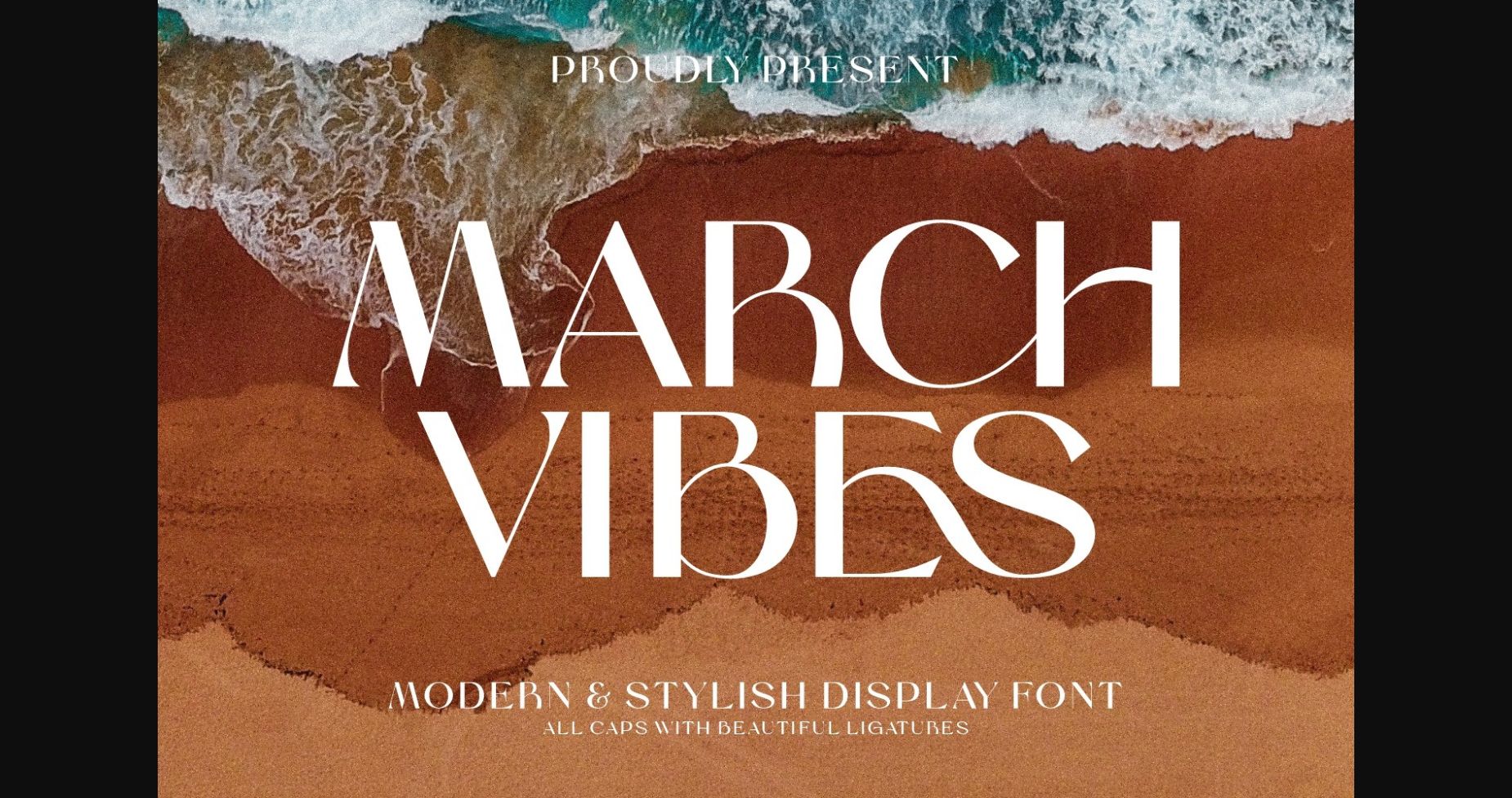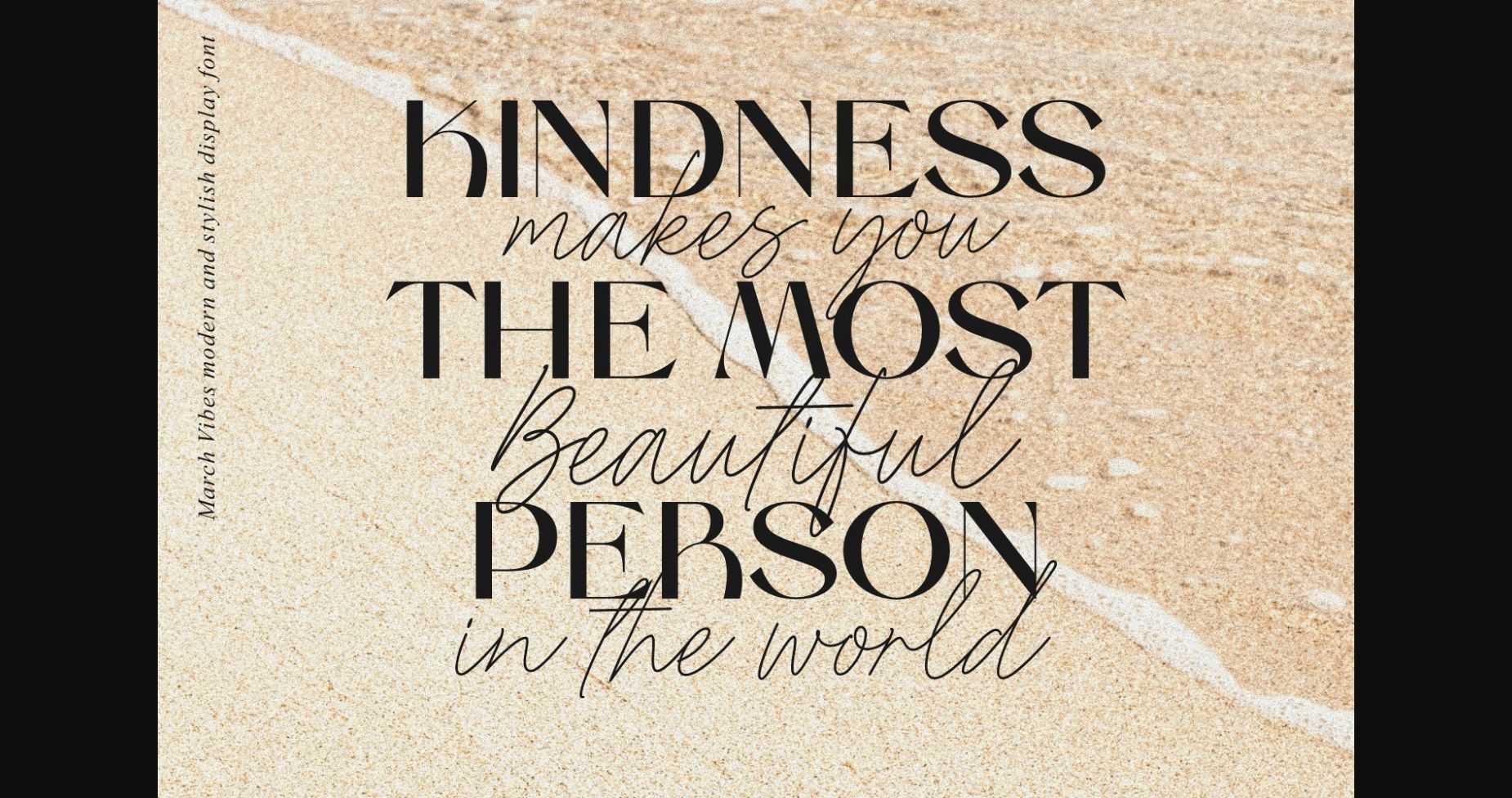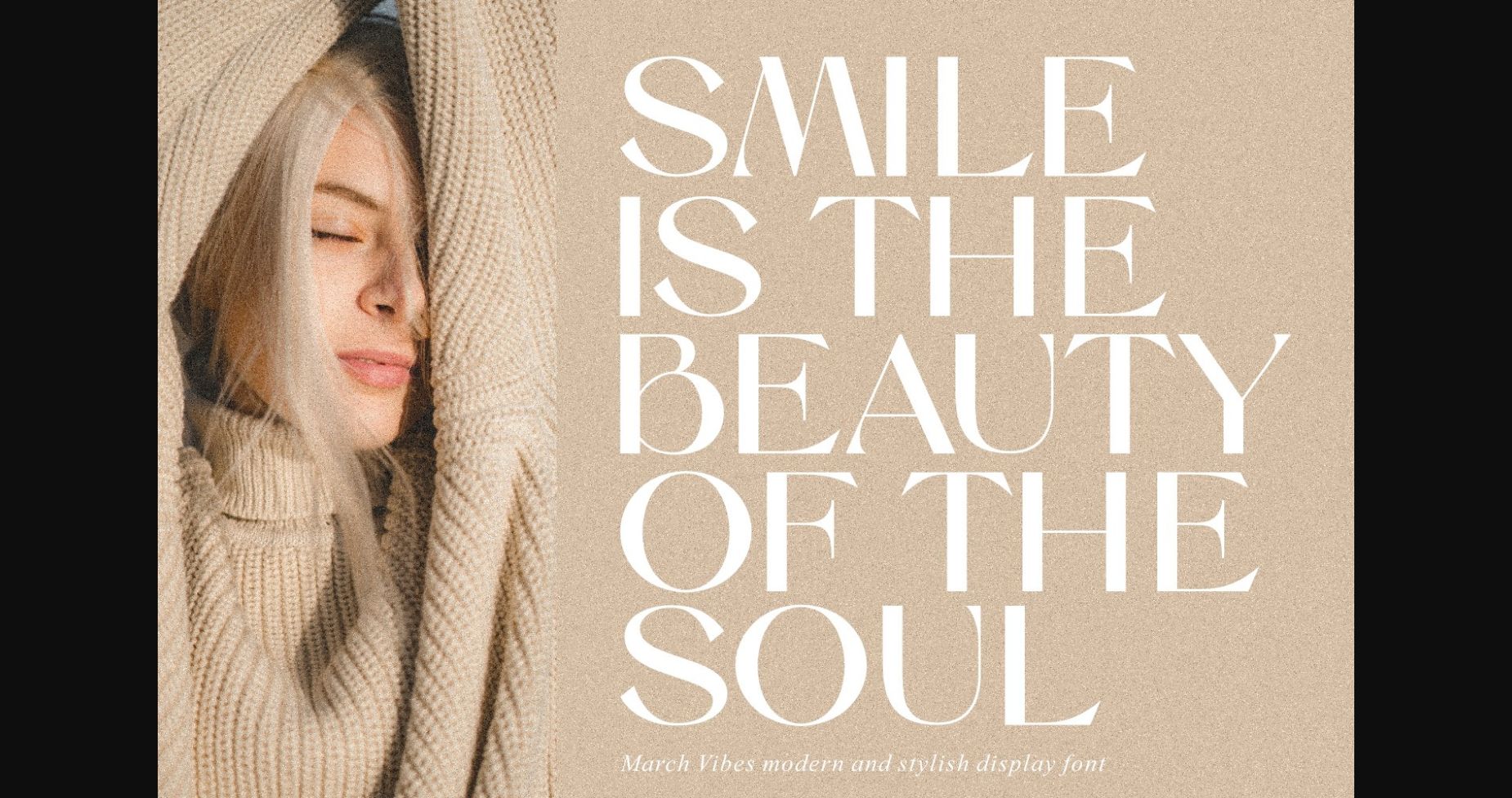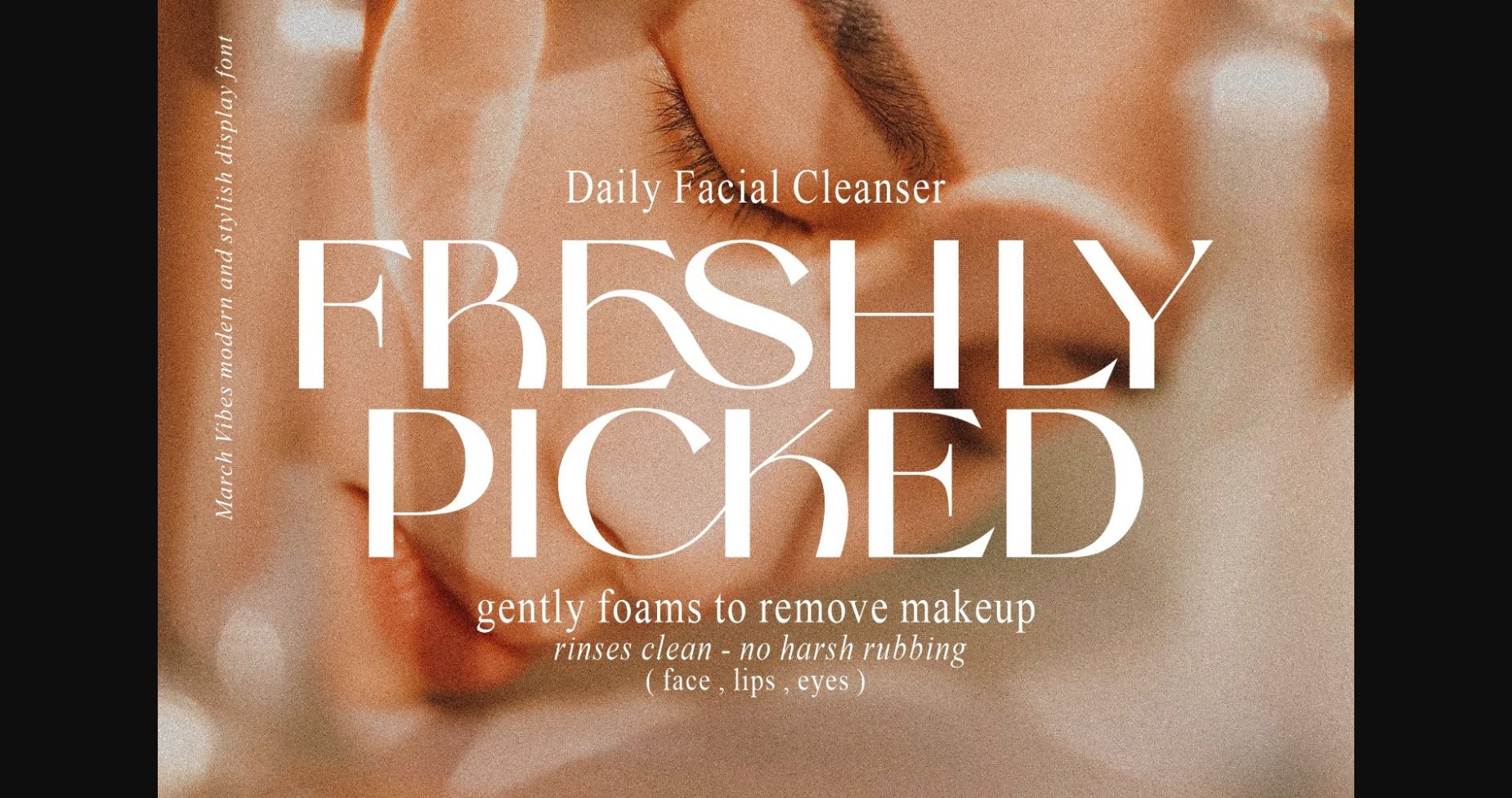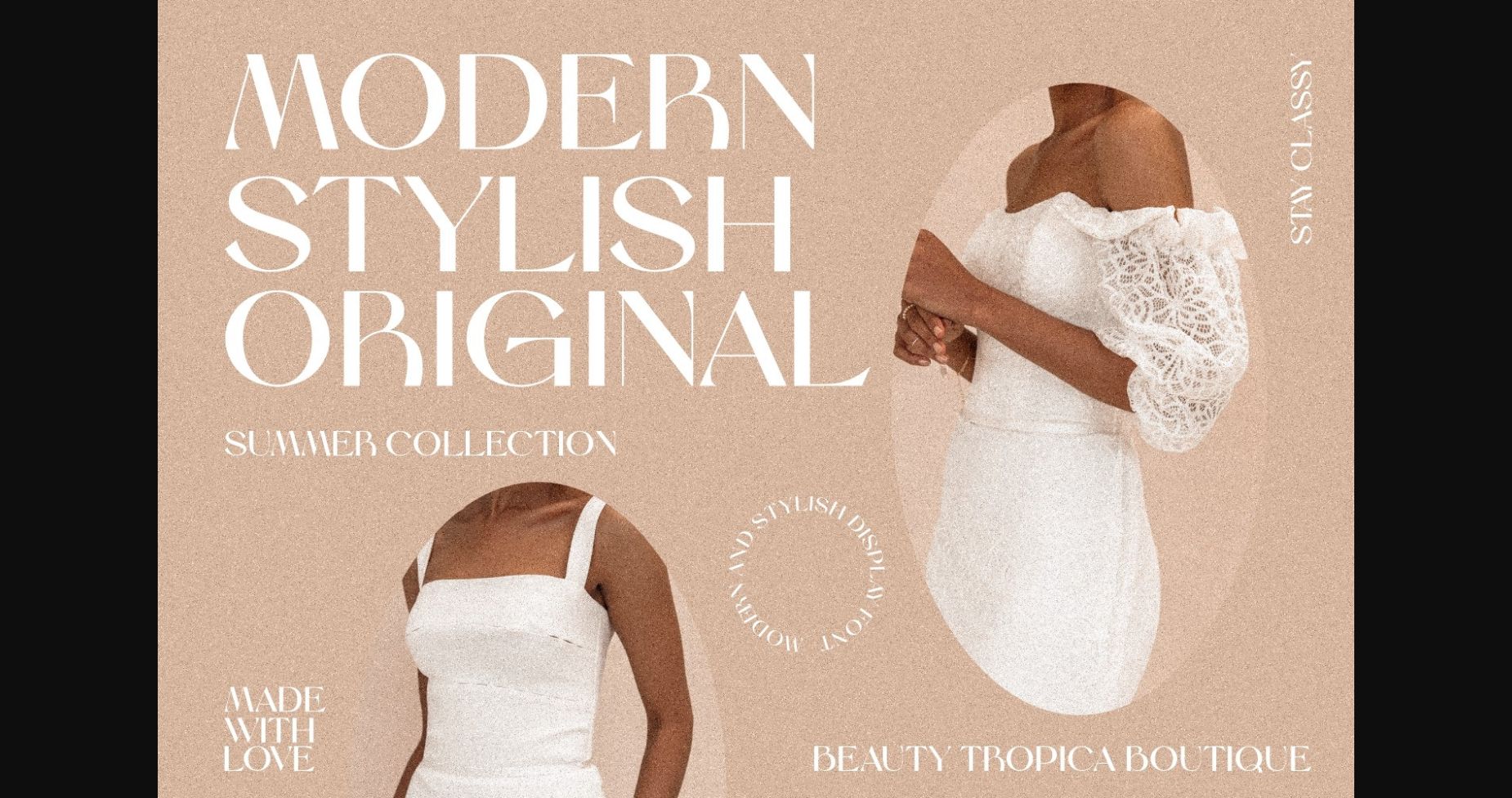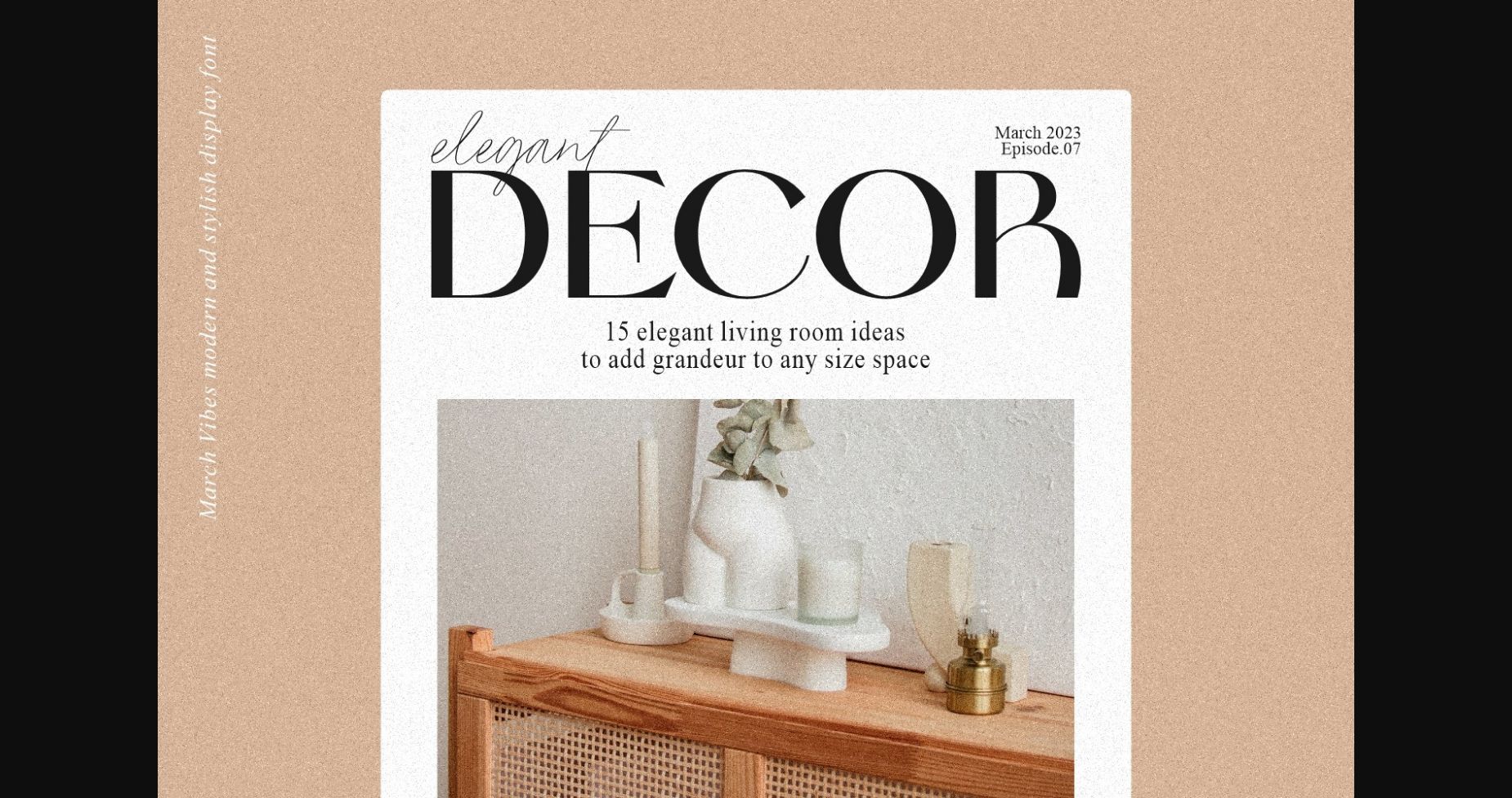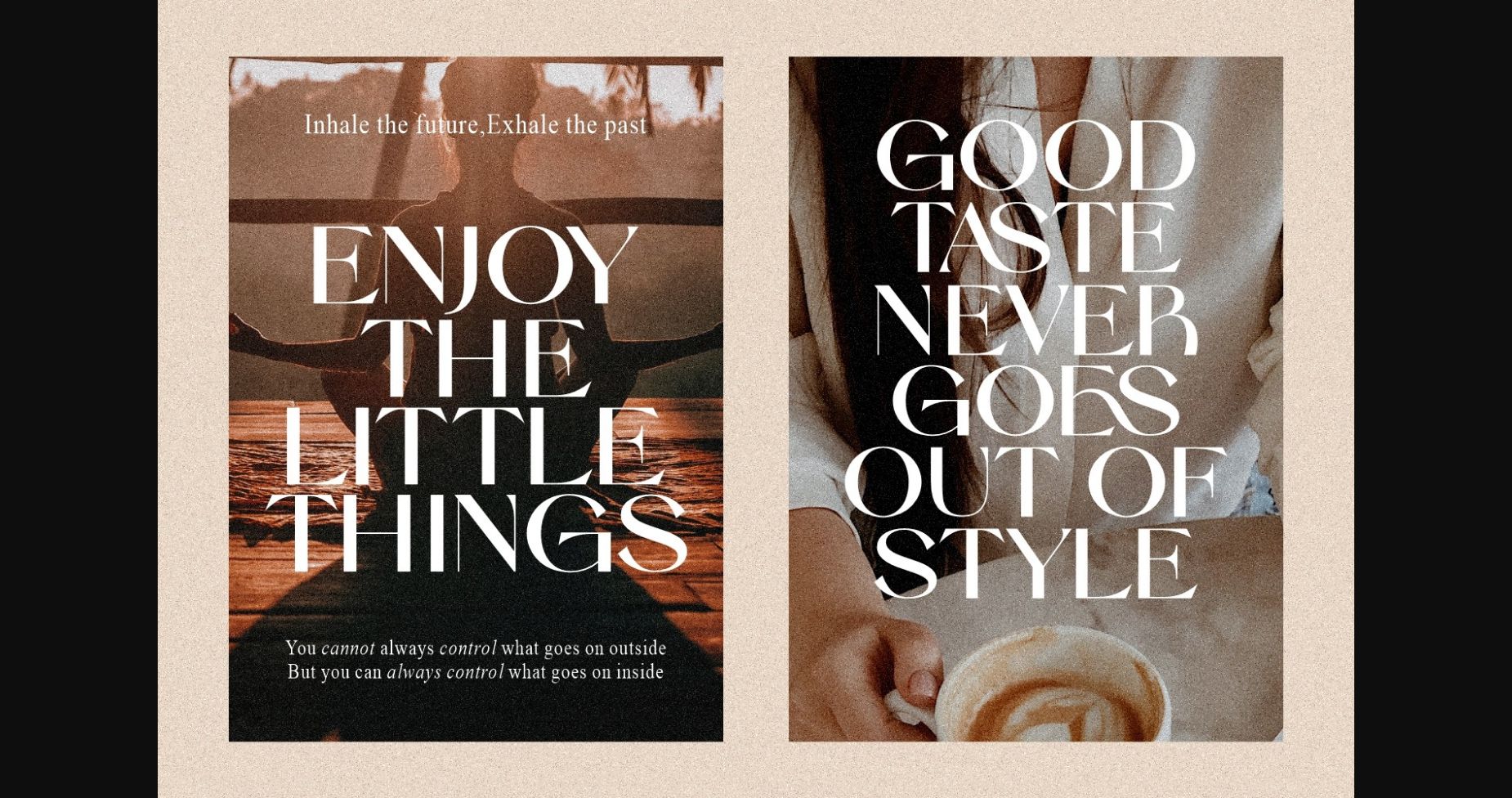
March Vibes Font
About March Vibes Font
March Vibes is a modern and stylish sans-serif font that is perfect for creating an elegant and eye-catching look. Its sleek lines and open forms give a contemporary feel to any project. Perfect for logos, signs, and titles. This font is PUA encoded which means you can access all glyphs and swashes effortlessly!